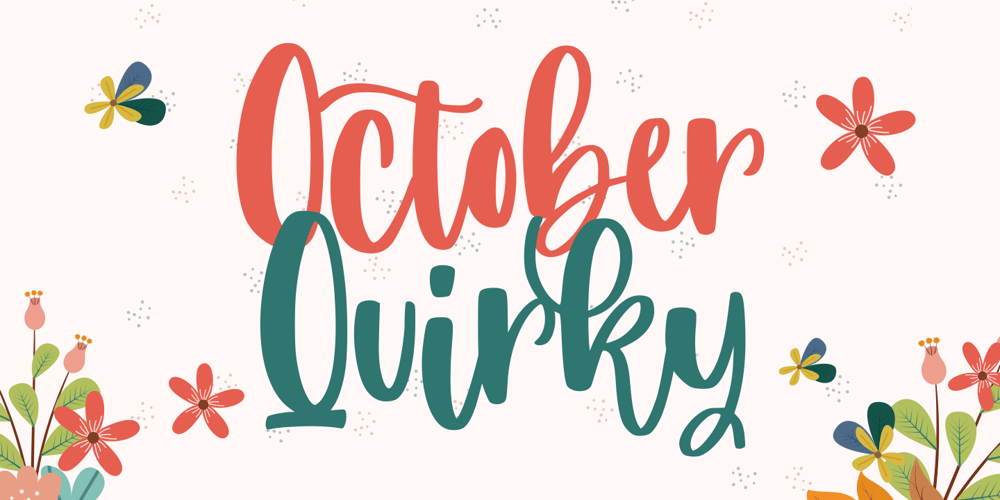
October Quirky Font Family was designed by Good Java and published by Good Java Studio. October Quirky contains 1 styles and family package options. October Quirky – Cute Quirky font make from handlettering ideas in typeface. This font includes full of Alphabetical glyphs, Numerals, and punctuation. This is so perfect for invitations, monograms, wedding, fashion, branding, label, handlettering or logotype.